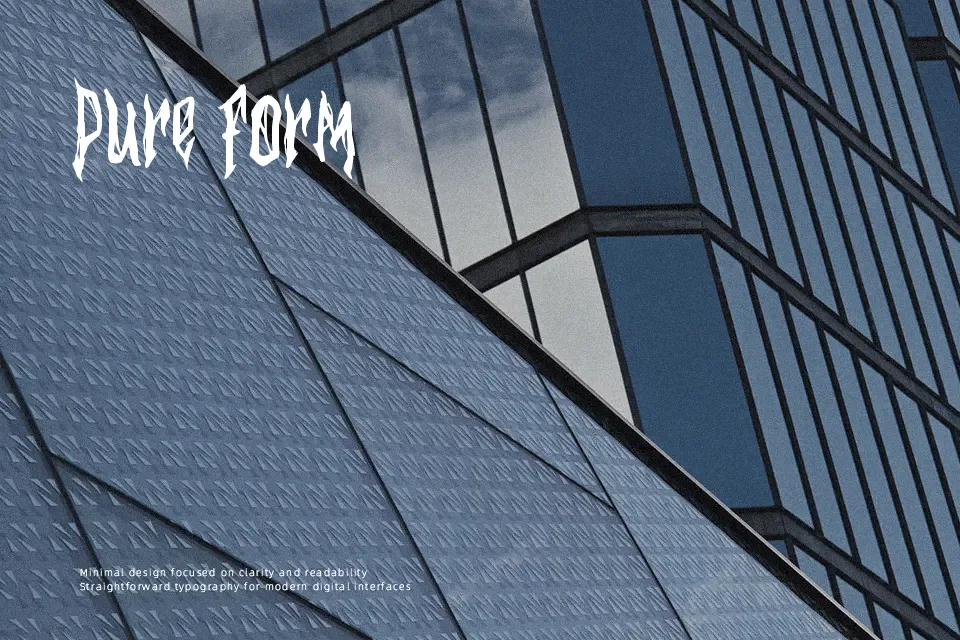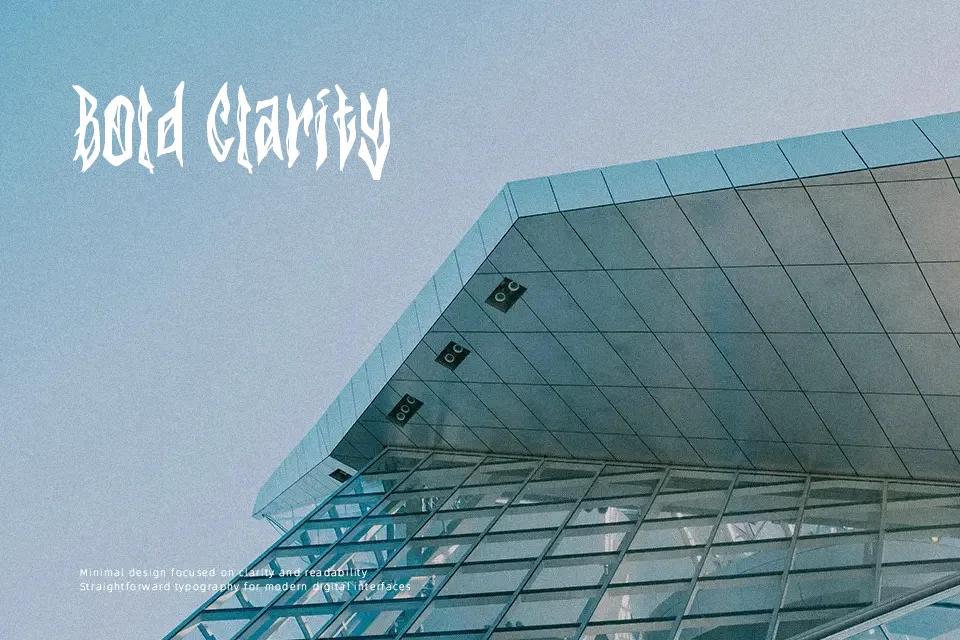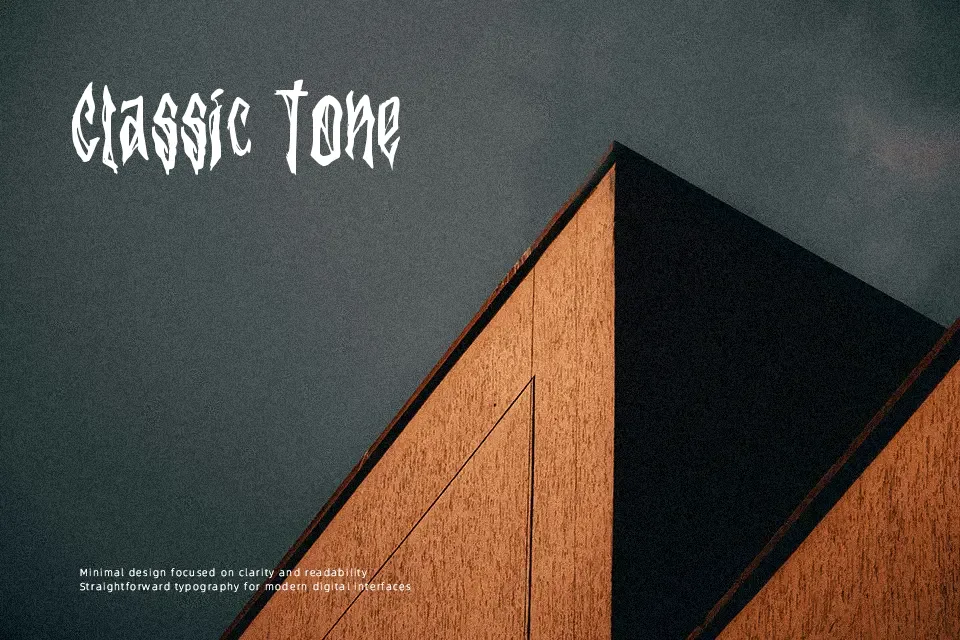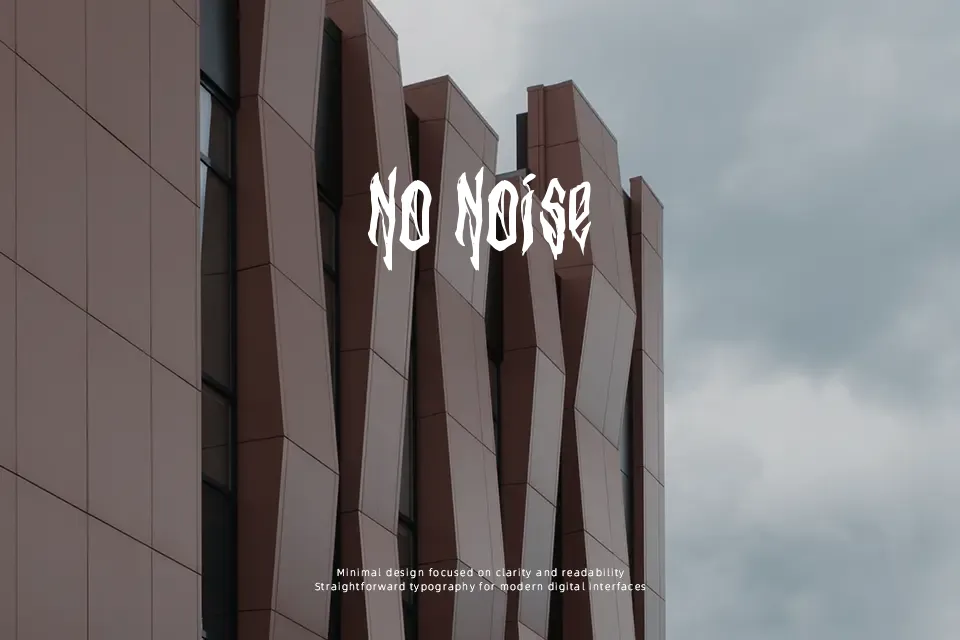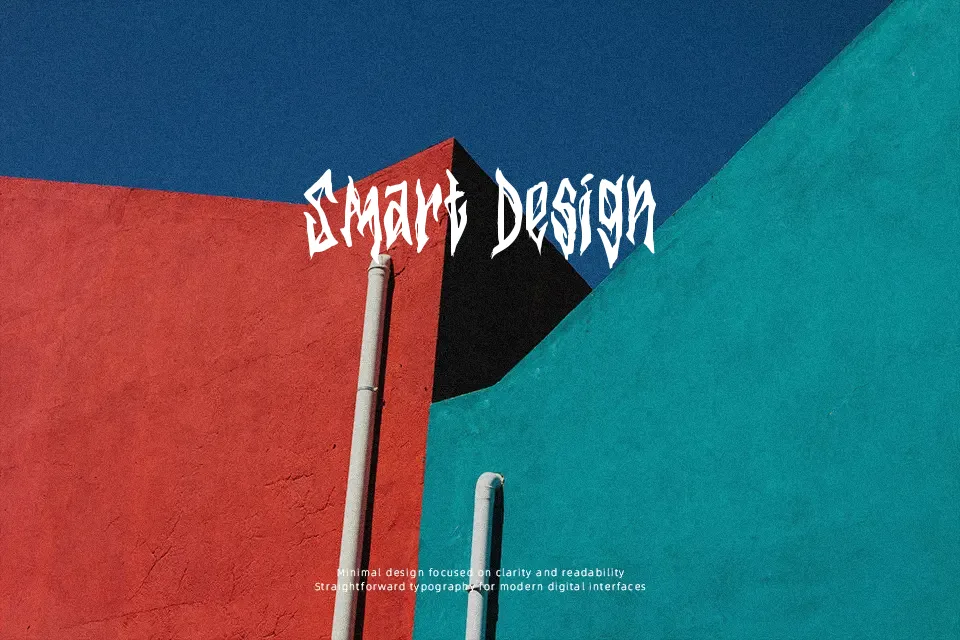
Vampyr Castle Font
Vampyr Castle Font delivers a fierce gothic presence through elongated vertical stems, razor-sharp spiky terminals, and deeply notched diagonal strokes. Characters maintain a condensed silhouette with tight horizontal spacing, producing an imposing, compact rhythm that thrives in dominant titles. Stroke contrast remains pronounced across uppercase capitals and dramatic lowercase forms, accentuating the threatening, sinister aesthetic. Because these intricate thorny contours and narrow inner counters fill in quickly at compact proportions, the typeface is less suitable for long paragraphs. When positioned at commanding display scales, the typeface creates an arresting, eerie tone that commands instant reader attention.
Best For: horror movie titles, Halloween event flyers, gothic book covers, heavy metal album art
Not Ideal For: long paragraph text, mobile app interface text, dense spreadsheet data, legal documents
Perfect for film, halloween, and headline, with a dark and blackletter style.